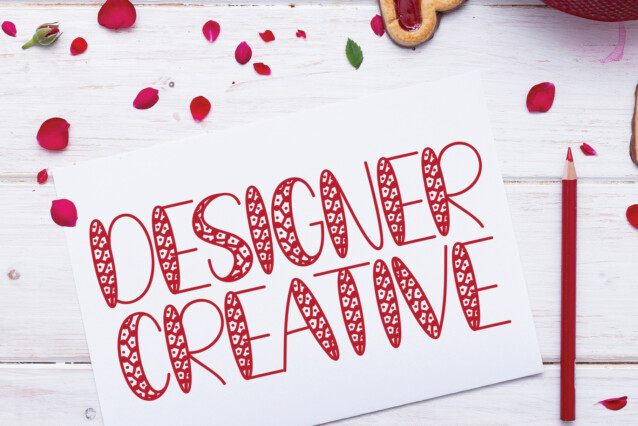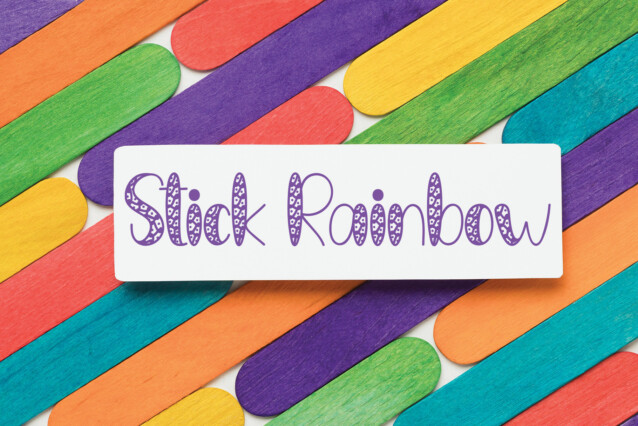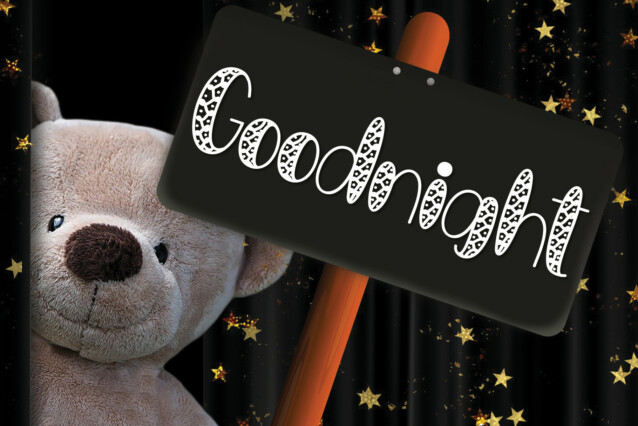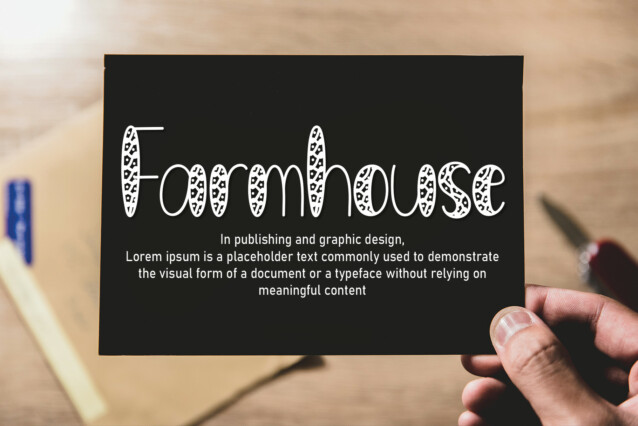
Valentine Love Display Font
Valentine Love Display Font is a sweet and adorable decorative display font. Add to your romance-themed designs and you will be amazed by the generated outcome!